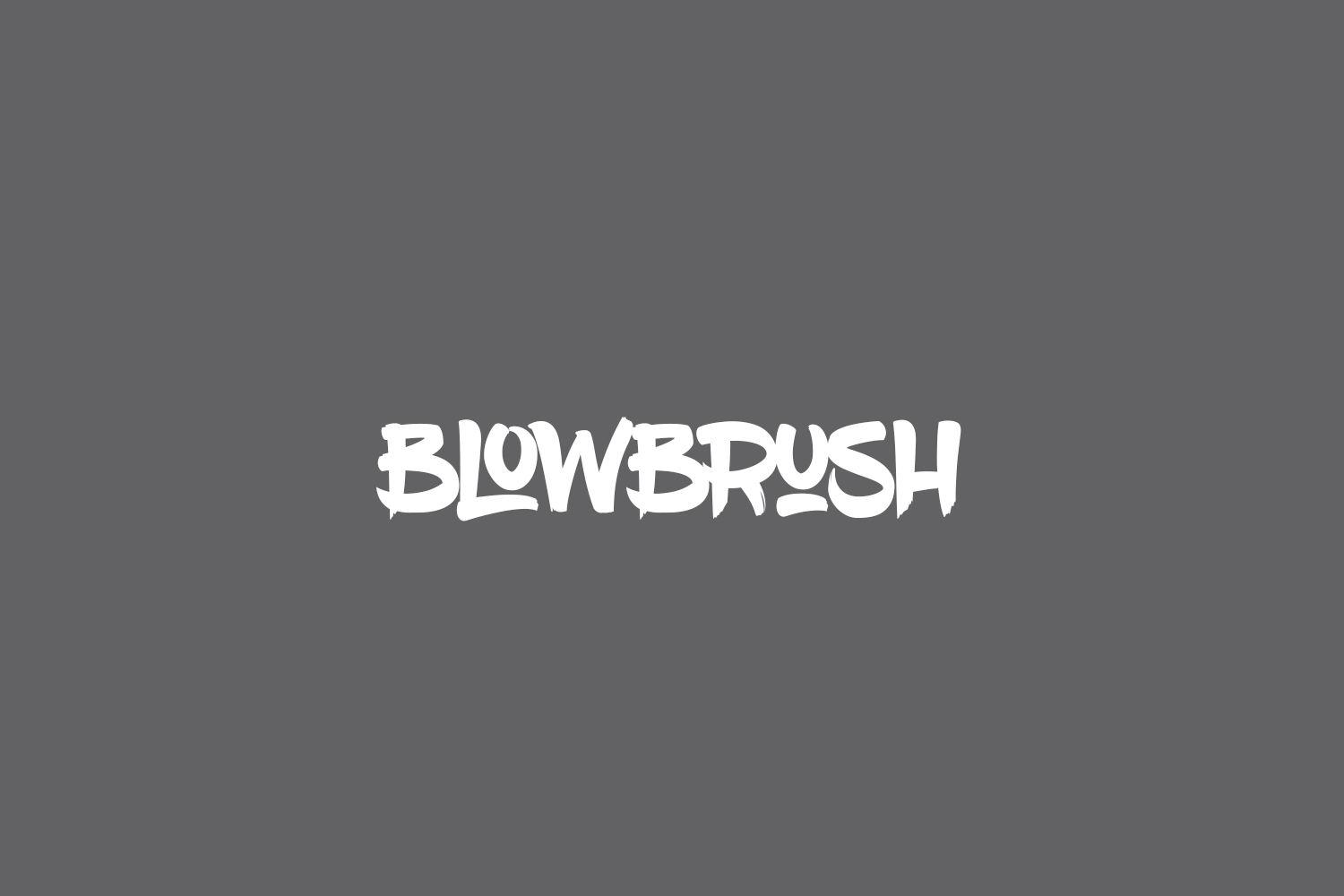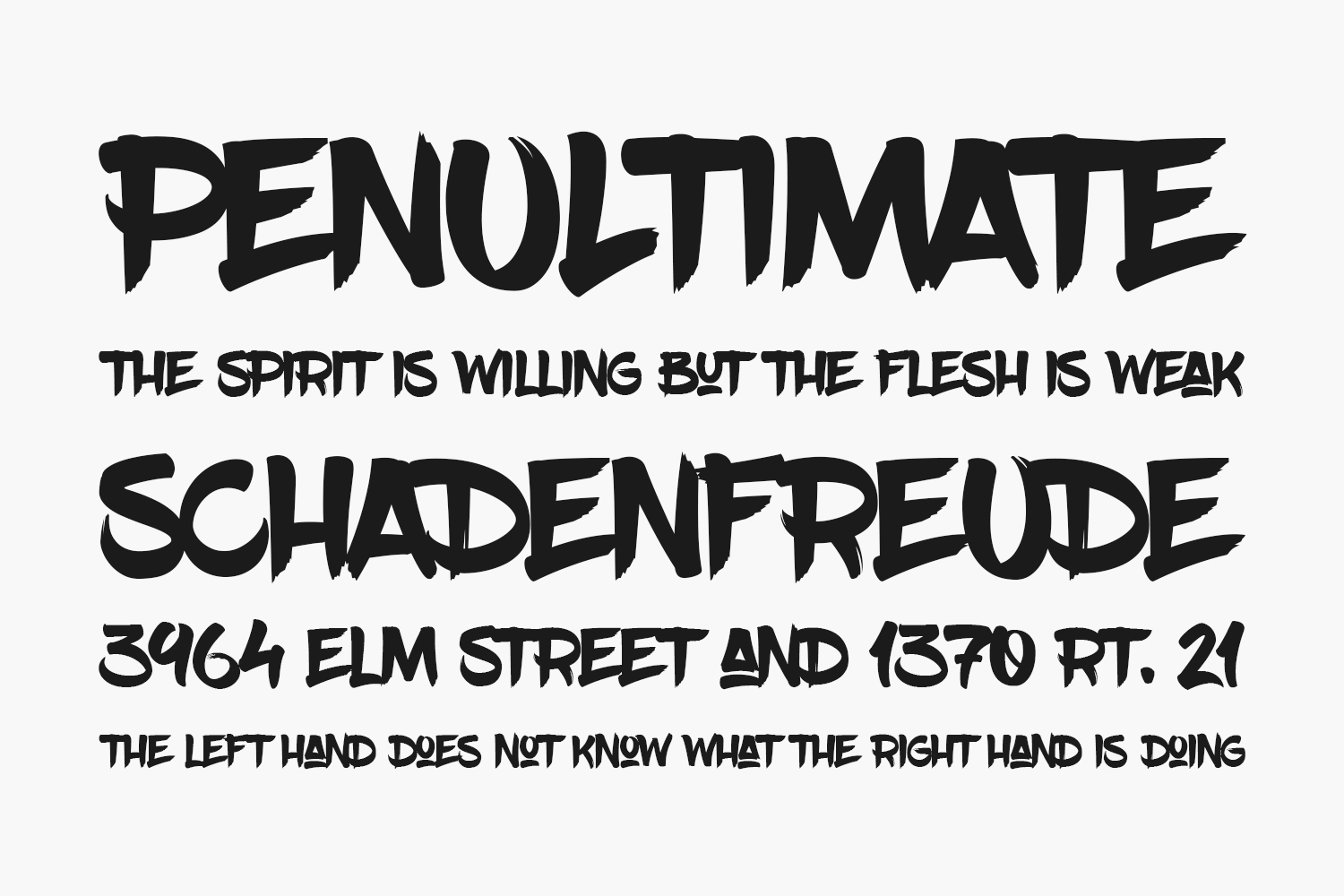
BlowBrush Free Font is a handwritten style brush-lettered font with natural lines and edges. It contains more than 3000 kerning pairs and 23 ligatures. Quirky, marker style comes to expression through unique handmade font which comes complete with a full set of upper characters, numbers, a selection of special characters, and some variations. These variations can give every text a unique character and a nice flow, thus making it look original. BlowBrush Free Font is free for both personal and commercial use.
Designed by Petar Acanski